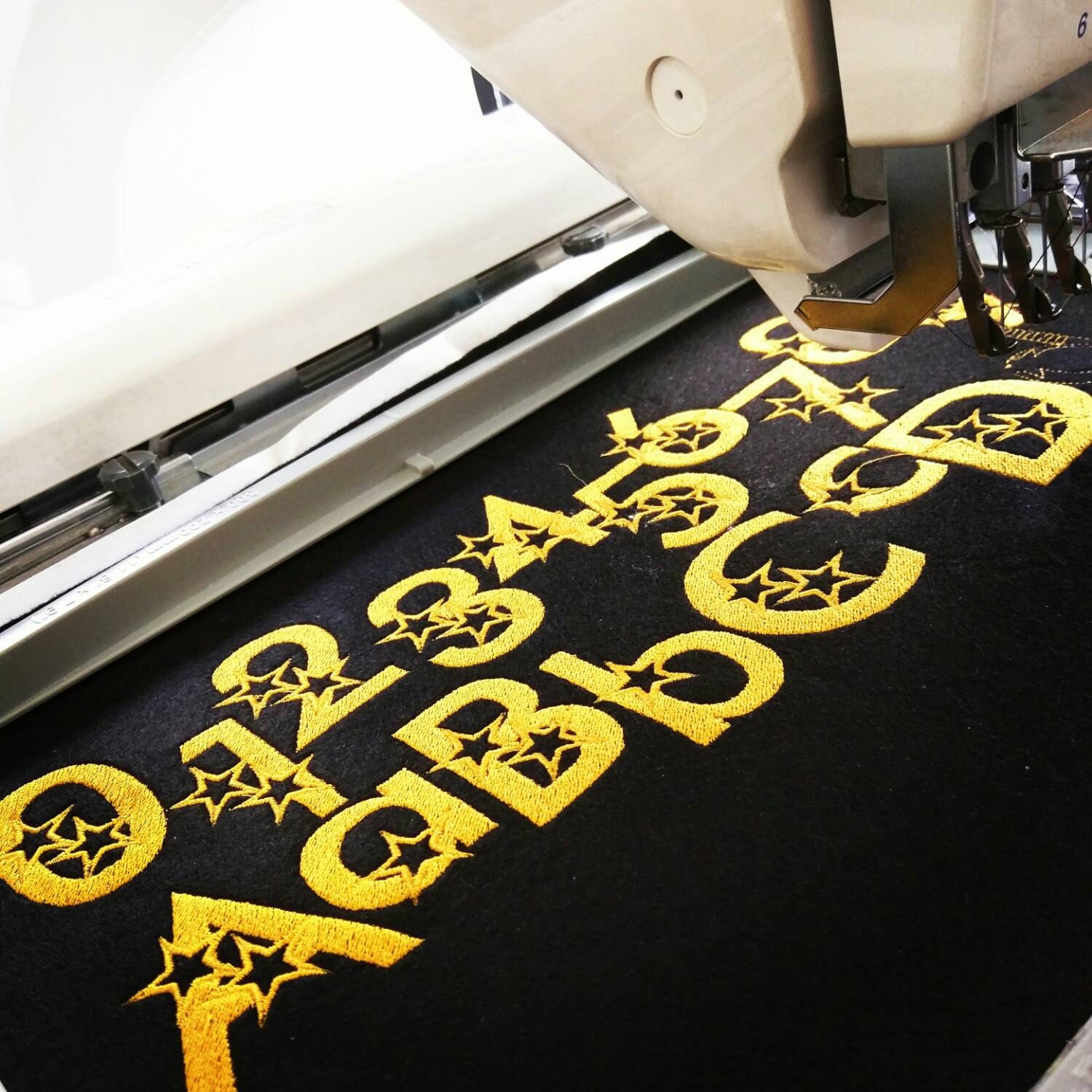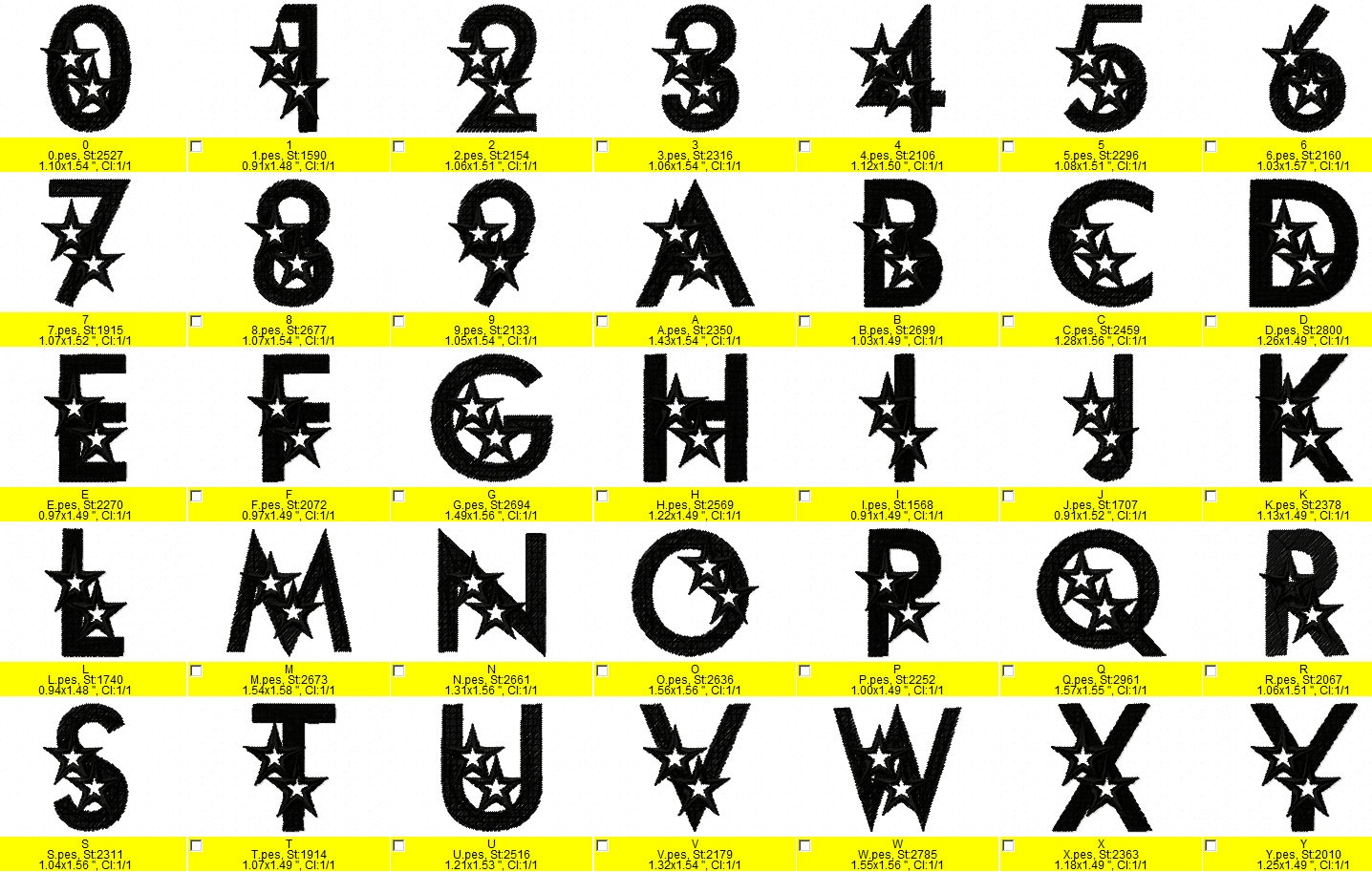
Movie stars Font machine embroidery design uppercase, lowercase and numbers size 2 and 3 inches, star monogram font alphabet embroidery design
INCLUDED: Capital letters, lower letters and numbers